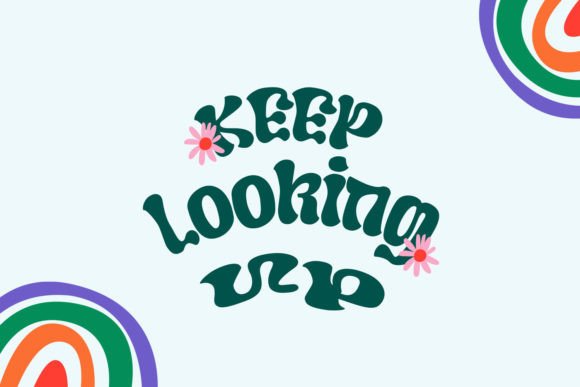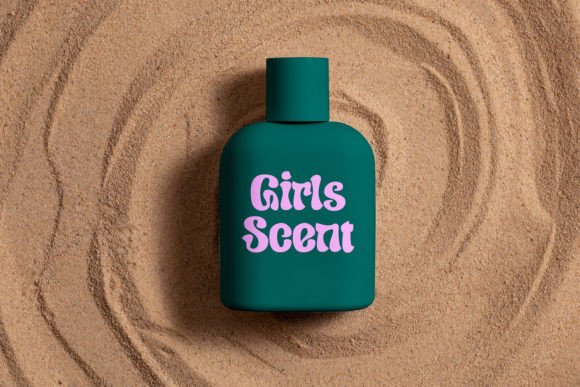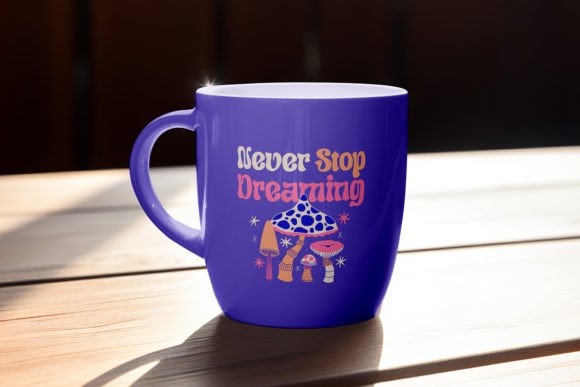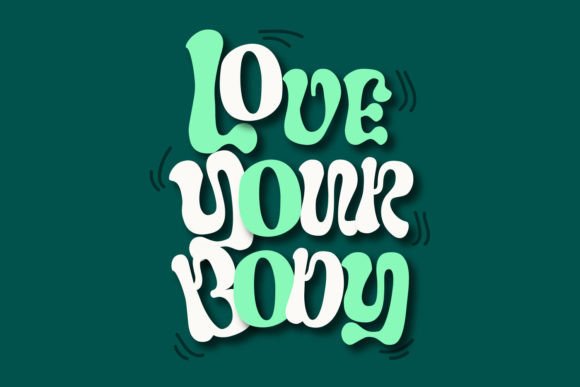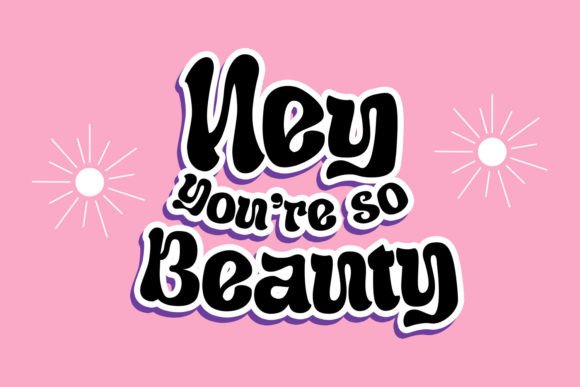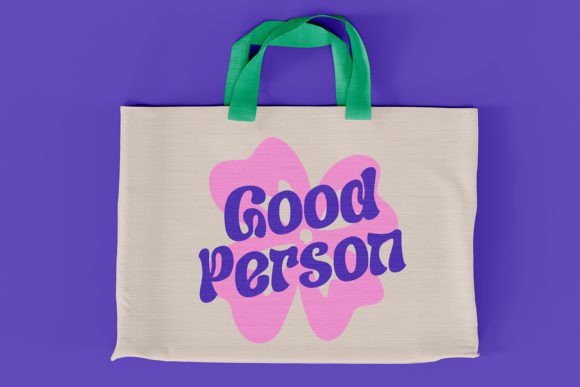
Discover the Playful Charm of Agemate Font
I’ll never forget the time I was working on a design project for a children’s birthday party invitation. I had the concept, the colors, and the graphics, but something was missing – the perfect font. I scrolled through my font library, but nothing seemed quite right. That’s when I stumbled upon Agemate Font, a quirky display font that brought a playful touch to my design. In this article, I’ll share my experience with Agemate, its unique features, and how you can make the most of it in your designs.
What Makes Agemate Font Special?
Agemate is a display font that exudes creativity and fun. Each letter is crafted with playful shapes and quirky details, giving it a sense of personality and whimsy. The uneven outline adds to its handcrafted feel, injecting a touch of spontaneity and creativity into the overall design. What sets Agemate apart is its ability to inject energy and vitality into any design project.
My Honest Review of Agemate Font
Here’s what I love about Agemate Font:
• ✨ Unique and playful design that’s perfect for creative projects
• ✅ Easy to read and understand, even in larger blocks of text
• 💡 Great for headlines, titles, and short phrases
• 🎉 Works well with a variety of design styles, from minimalist to elaborate
However, I did notice a few quirks:
• 🤔 May not be suitable for very small font sizes or body text
• ⚠️ Some letters may appear a bit distorted or uneven, which can be a minor distraction
The Story Behind Agemate Font
Agemate Font was designed by a team of creatives who wanted to create a font that would bring a touch of playfulness and whimsy to designs. Inspired by hand-drawn lettering and quirky typography, Agemate Font was crafted to inject energy and vitality into any design project.
What is Agemate Font? Agemate Font is a quirky display font designed to bring a playful touch to your designs.